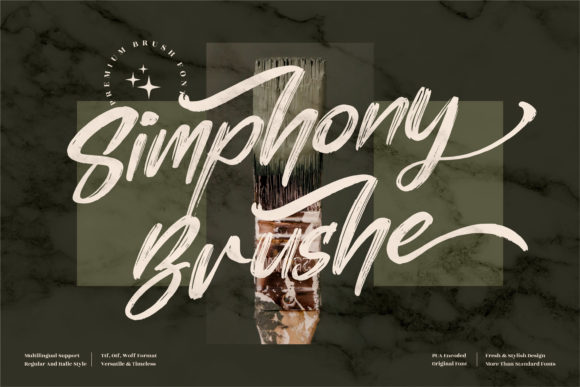
Behold the resplendent world of Sim Symphony Brushe, a font of remarkable allure that enriches the realm of artistic expression. It's a flowing script font that exudes sophistication and grace, captivating onlookers with its stylish alternatives and ligatures. Sim Symphony Brushe is a canvas of creativity, allowing you to paint your designs with panache. Its personality is as bold as it is elegant, adding a touch of magic to any project it adorns.
Immerse yourself in the allure of Sim Symphony Brushe. Its enchanting curves and delicate strokes create a visual symphony that dances across the screen, capturing hearts and igniting the imagination. As your eyes traverse its form, feel the harmonious blend of beauty and functionality. Whether you're a creative professional or a design enthusiast, Sim Symphony Brushe awaits your artistic embrace.
Unleash the power of Sim Symphony Brushe and transform your creative endeavors into masterpieces. Its versatility knows no bounds, effortlessly flowing from elegant wedding invites to bold branding campaigns. Its chic and stylish nature adds a touch of luxury to every project, ensuring that your designs stand out with distinction. Let Sim Symphony Brushe be your creative companion, guiding you towards extraordinary outcomes.
With Sim Symphony Brushe, embark on a journey of creativity and let your imagination run wild. Its captivating presence will elevate your designs to new heights, leaving audiences mesmerized by its charm. Discover the endless possibilities that lie within this remarkable font and unlock your true creative potential.